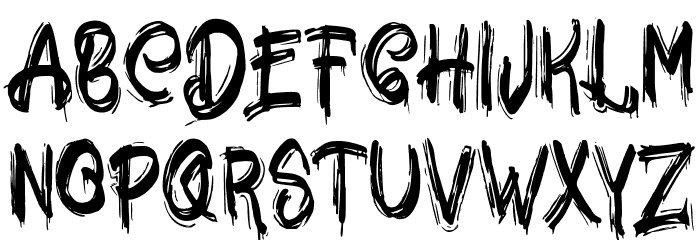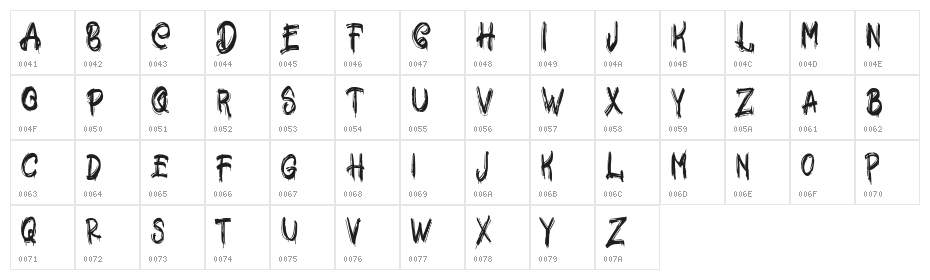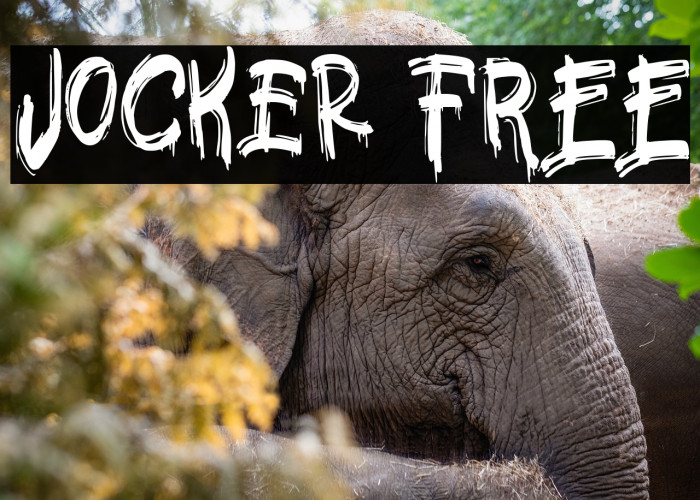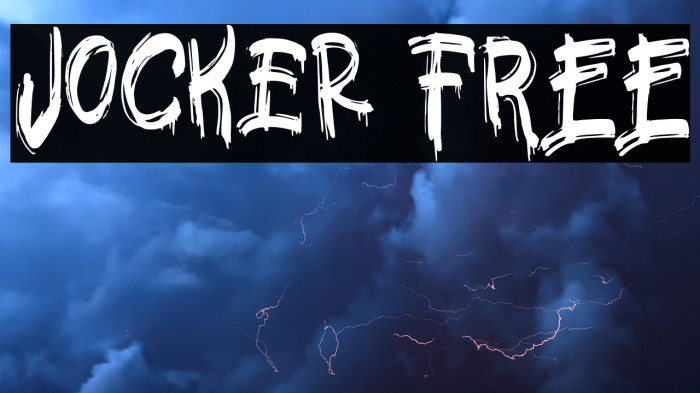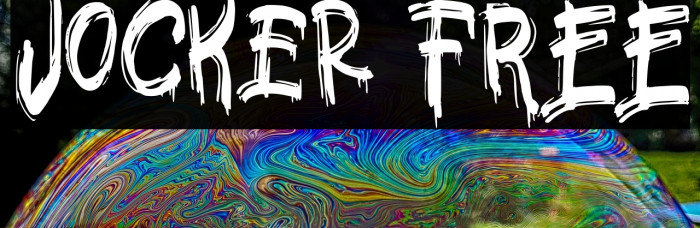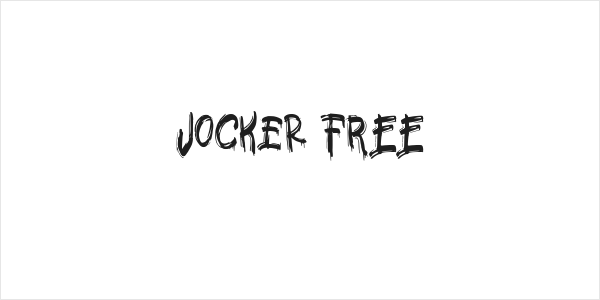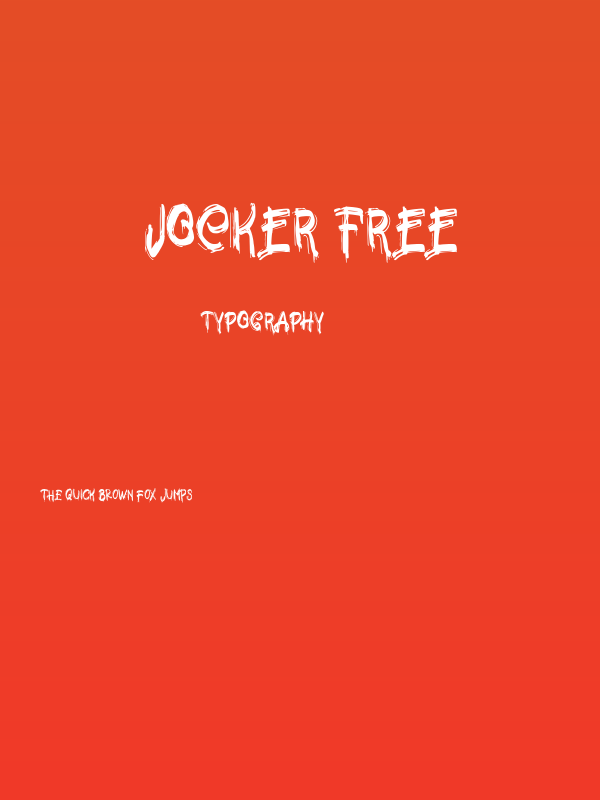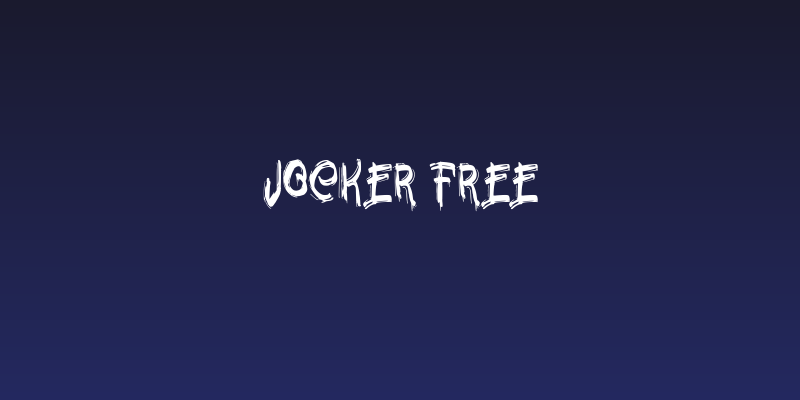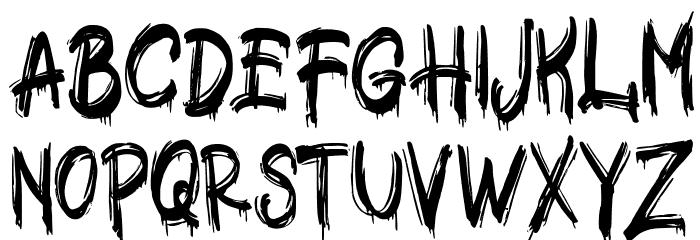
Jocker FREE Font
Jocker FREE Description
This font features a bold, expressive style with a hand-drawn appearance. The letters are characterized by uneven strokes and a distressed texture, giving them a raw, edgy look. The uppercase and lowercase letters maintain a consistent style, with exaggerated curves and sharp angles that create a sense of movement and energy. The numbers and special characters follow the same design principles, ensuring a cohesive appearance across all glyphs. This font's unique aesthetic makes it stand out, ideal for projects that require a strong visual impact.
| Proposed Projects | Ideal for posters, album covers, graffiti art, and any project needing a bold, artistic touch. |